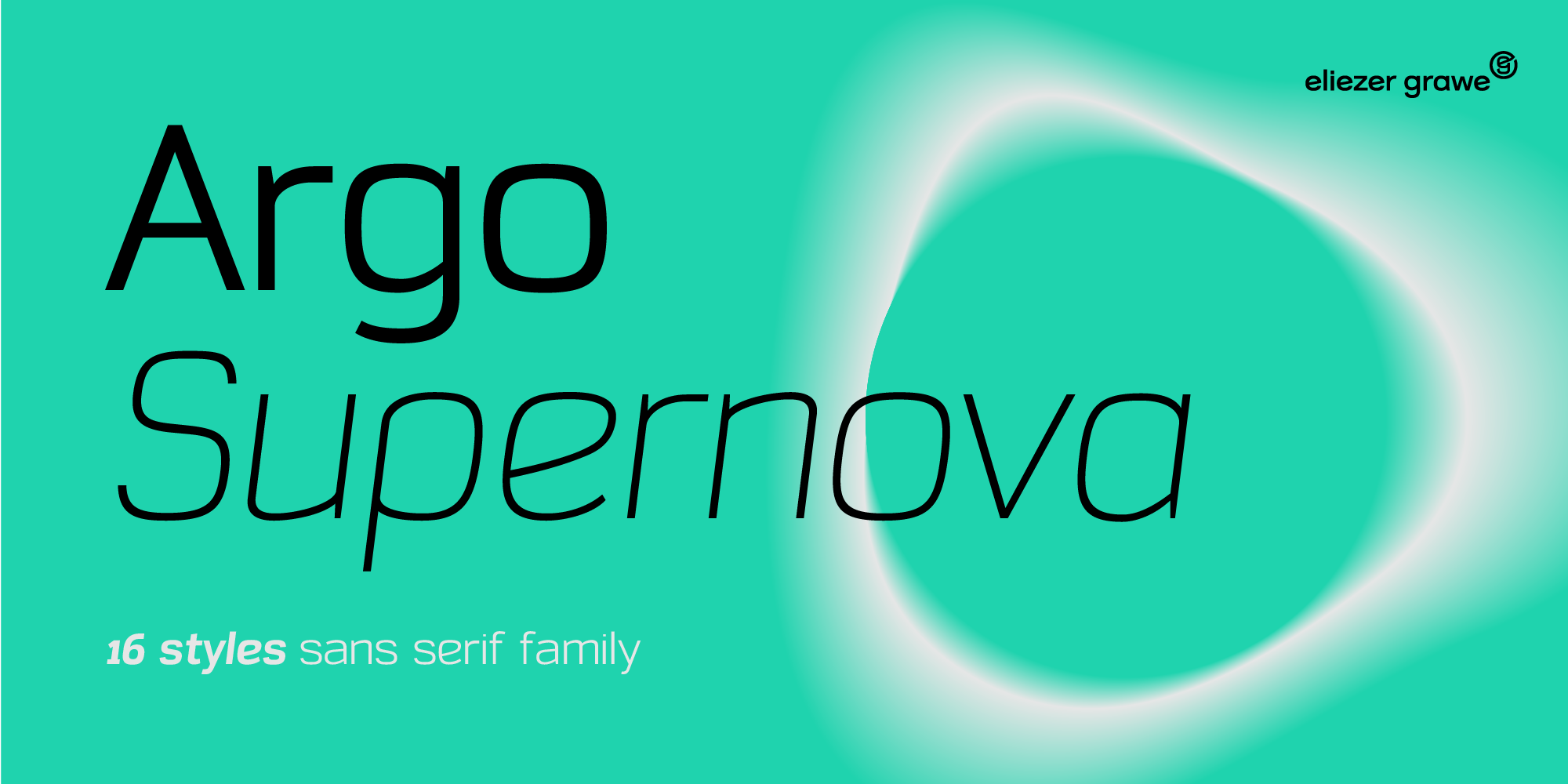
Argo Supernova Font Free Download – Futuristic and Bold Typeface for Impactful Designs
Want a font that blasts your designs into the future? Argo Supernova Font Free Download is a cutting-edge typeface with sharp angles and a bold presence, perfect for technology branding, gaming graphics, posters, and digital media projects.
Argo Supernova stands out with its dynamic shapes and sleek lines, offering both readability and an unmistakable modern flair. Whether you’re creating logos, headlines, or eye-catching social media posts, this font brings stellar energy to your work.
Launch your typography into a new dimension with Argo Supernova — a font that’s out of this world!